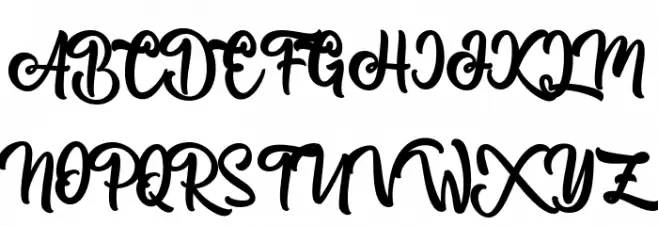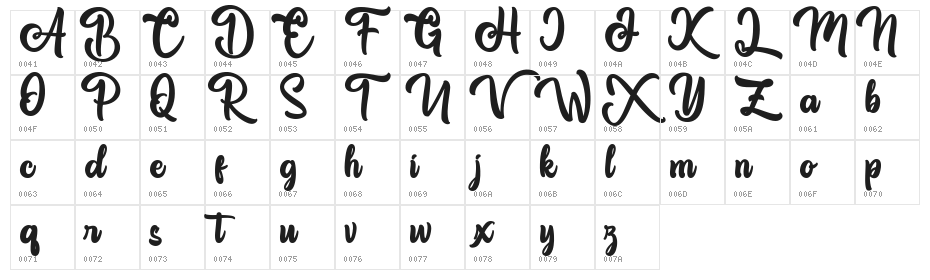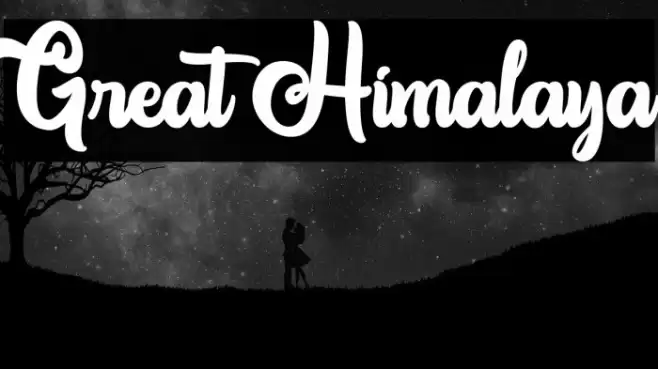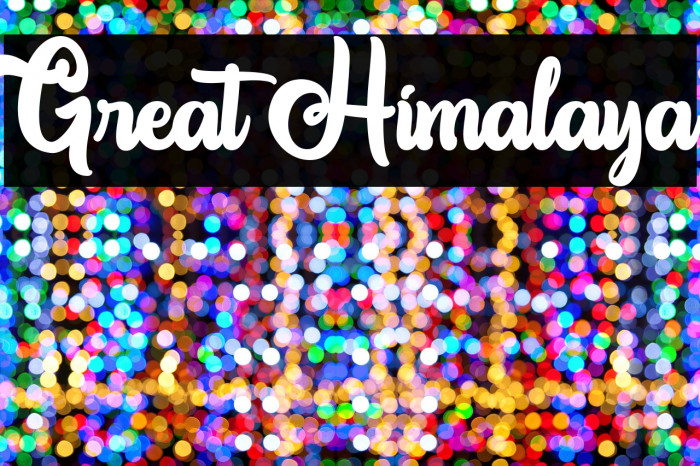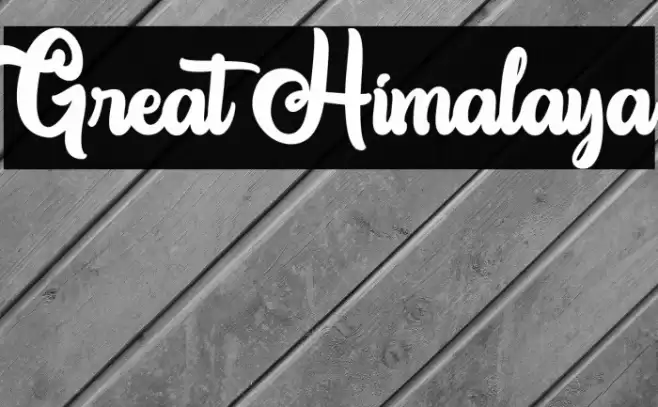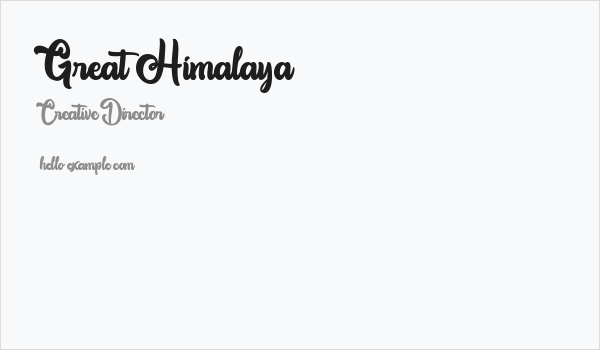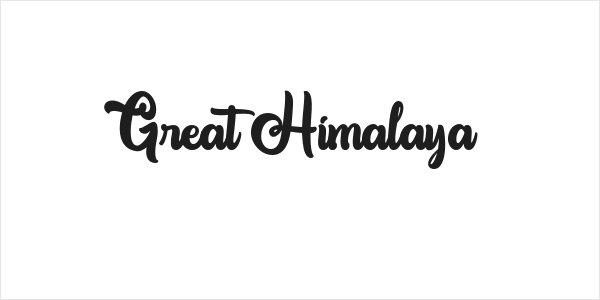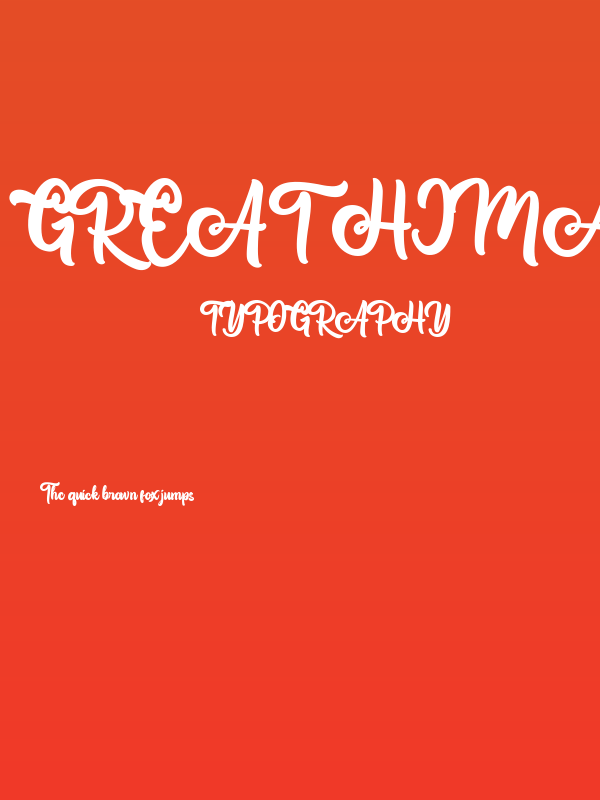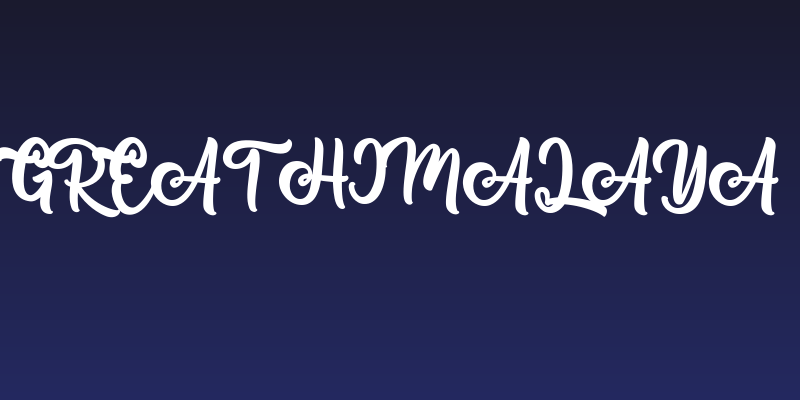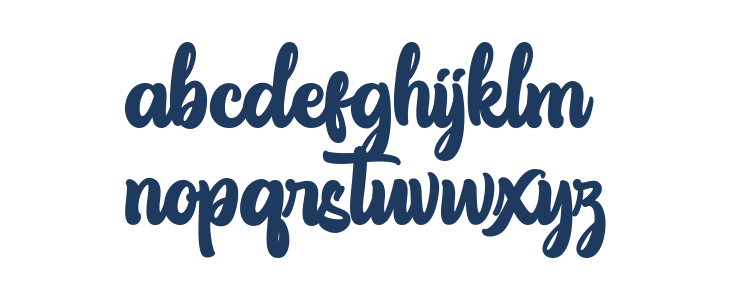
Great Himalaya Font
Great Himalaya Description
This font features a bold and expressive script style, characterized by its flowing, cursive letters that convey a sense of elegance and creativity. The uppercase letters are ornate with loops and swirls, while the lowercase letters maintain a consistent, rounded form that enhances readability. The font's playful yet sophisticated appearance makes it suitable for a variety of design projects. Its bold weight and high contrast between thick and thin strokes add to its visual impact, making it ideal for attention-grabbing headlines and artistic designs.
| Proposed Projects | Ideal for wedding invitations, branding, logos, and artistic posters. |